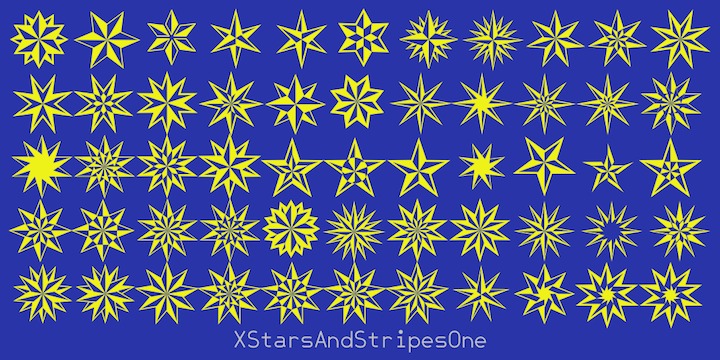
XStarsAndStripes
XStars And Stripes One Basic Latin/English letters
XStars And Stripes Two Basic Latin/English letters
Designed by: Robert Schenk
Designed when: 1994
XStars And Stripes One
These two typefaces contain elaborate star patterns and their mirror images.